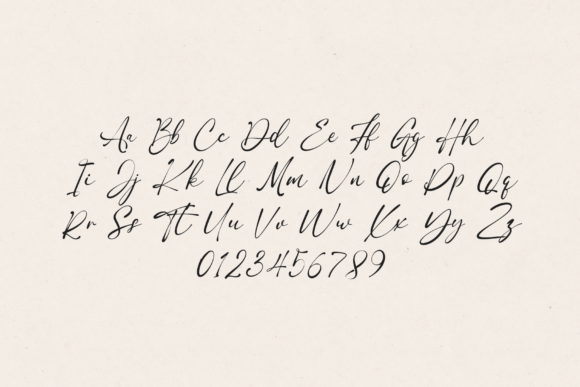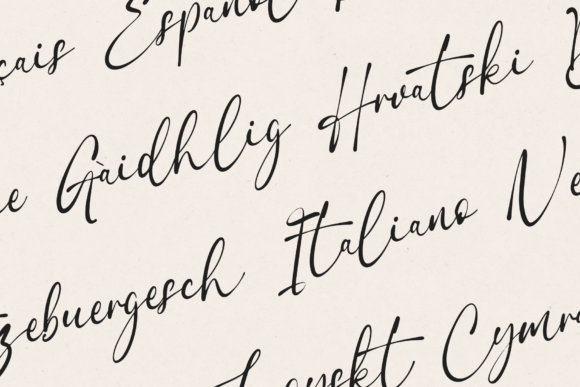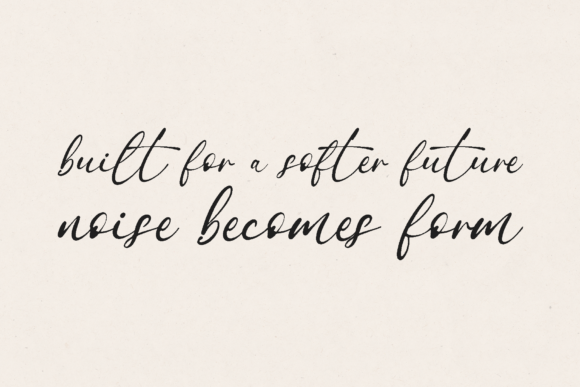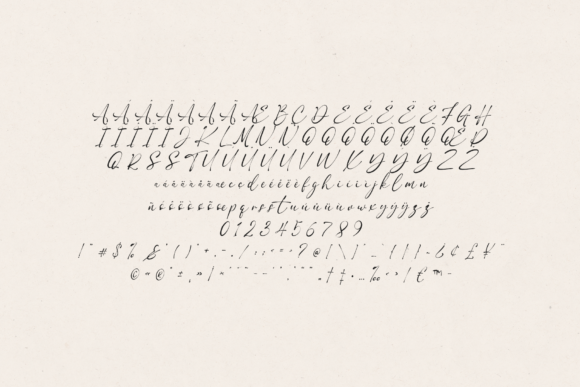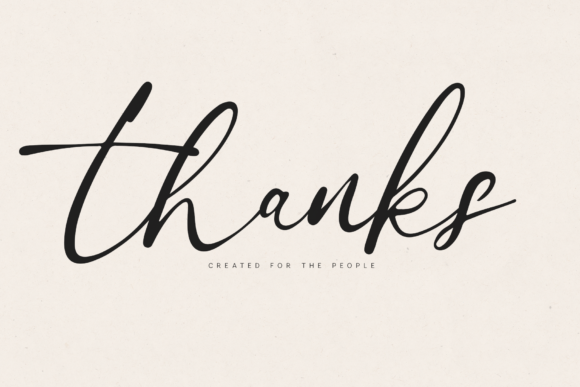
Introduction to Obviate Font
Obviate Script is a modern handwritten font crafted with smooth, natural strokes and a refined signature style.
Designed to bring elegance and personality, this script font is perfect for branding, logo design, wedding invitations, social media, packaging, and stylish typography projects With its clean flow and contemporary look, Obviate delivers a versatile and professional aesthetic that works beautifully across both digital and print designs.
Key Features of Obviate Font
Why Choose Obviate Font?